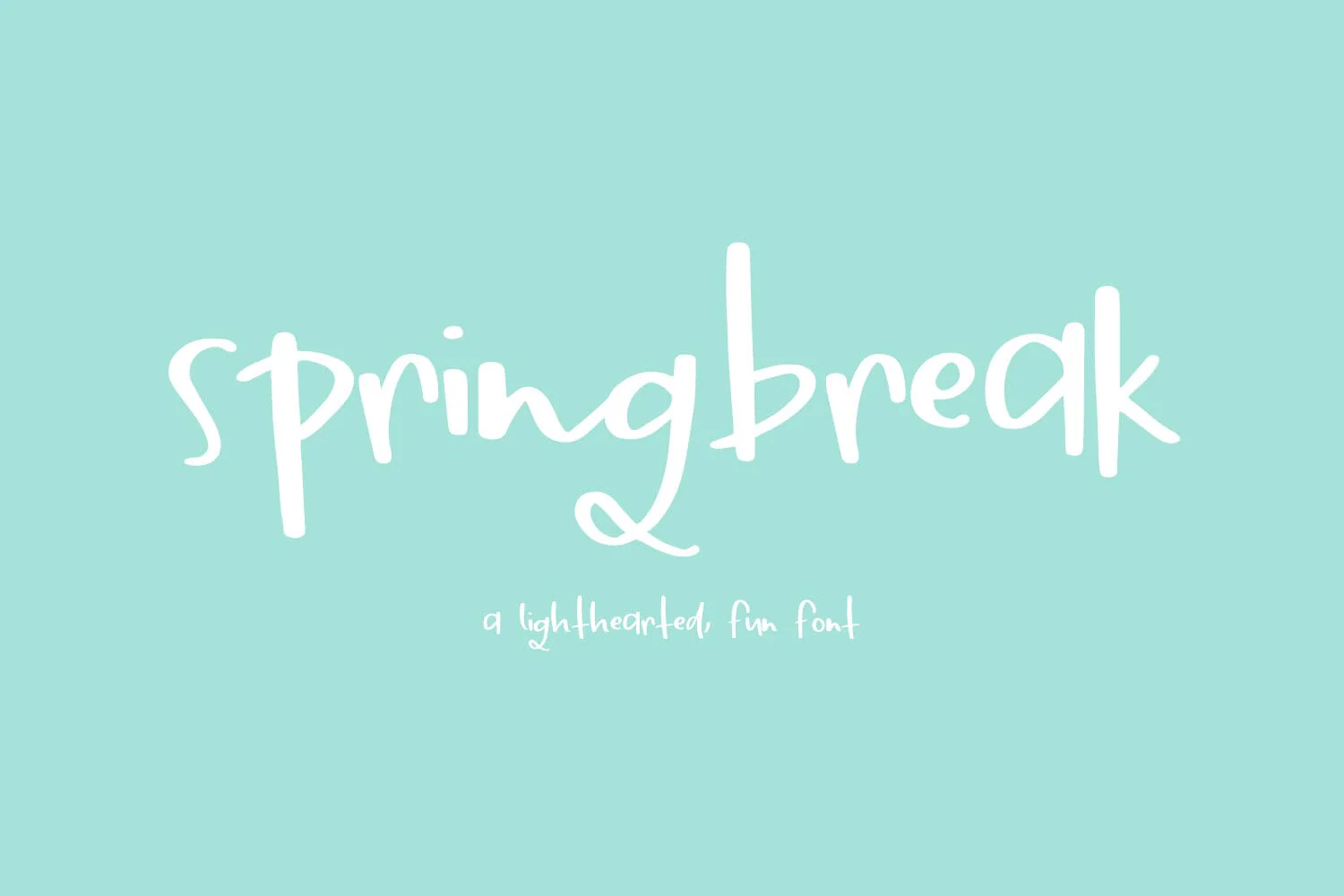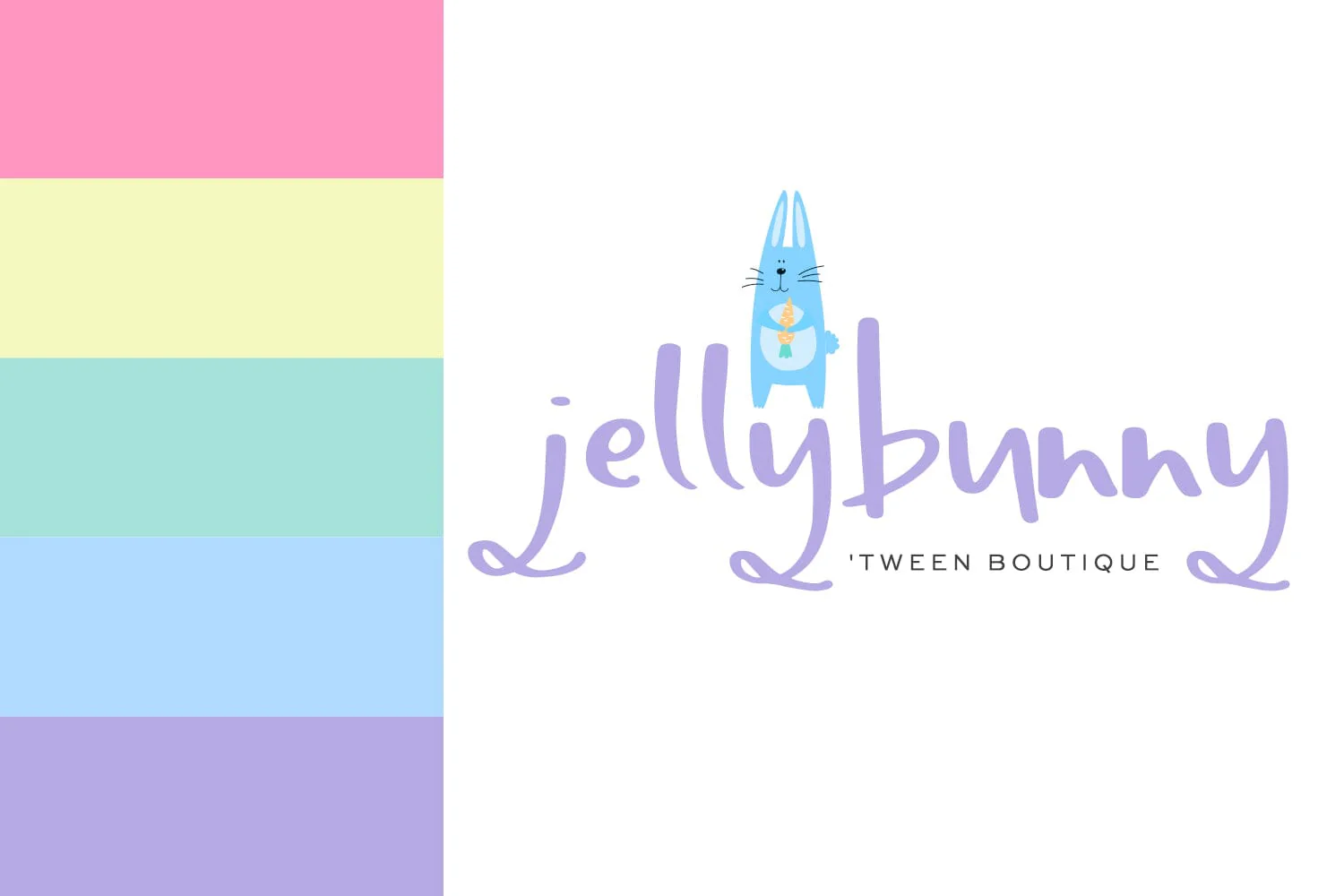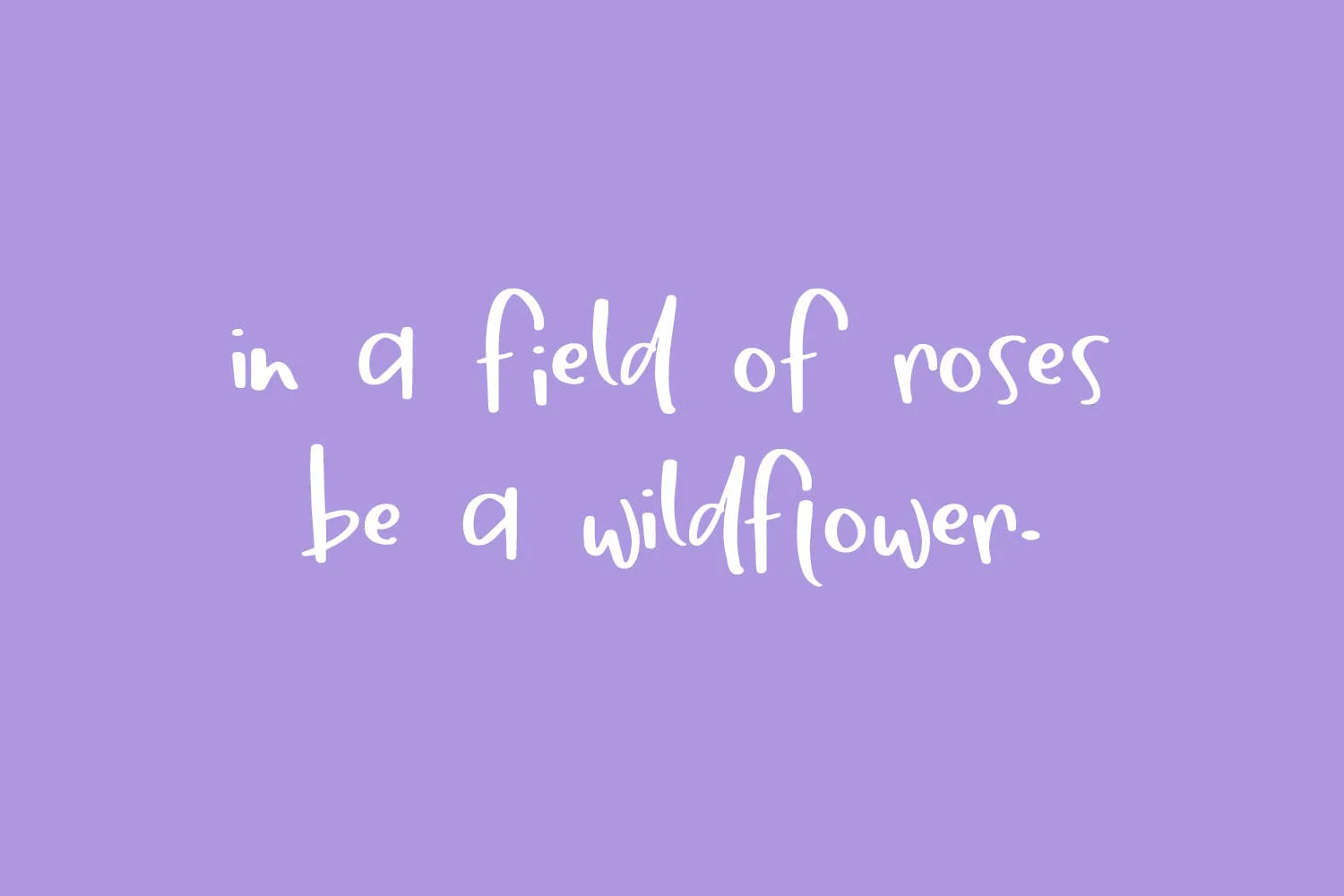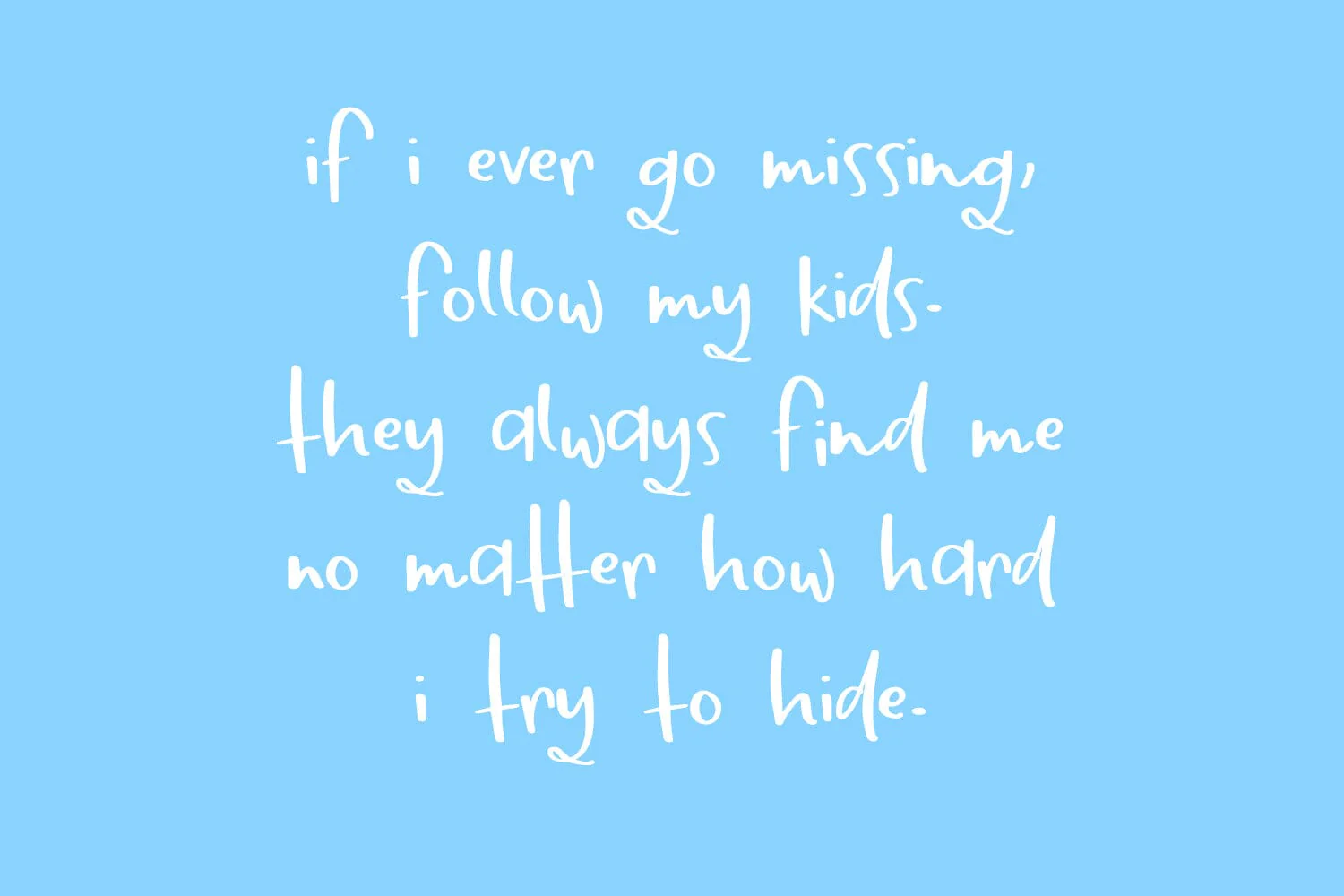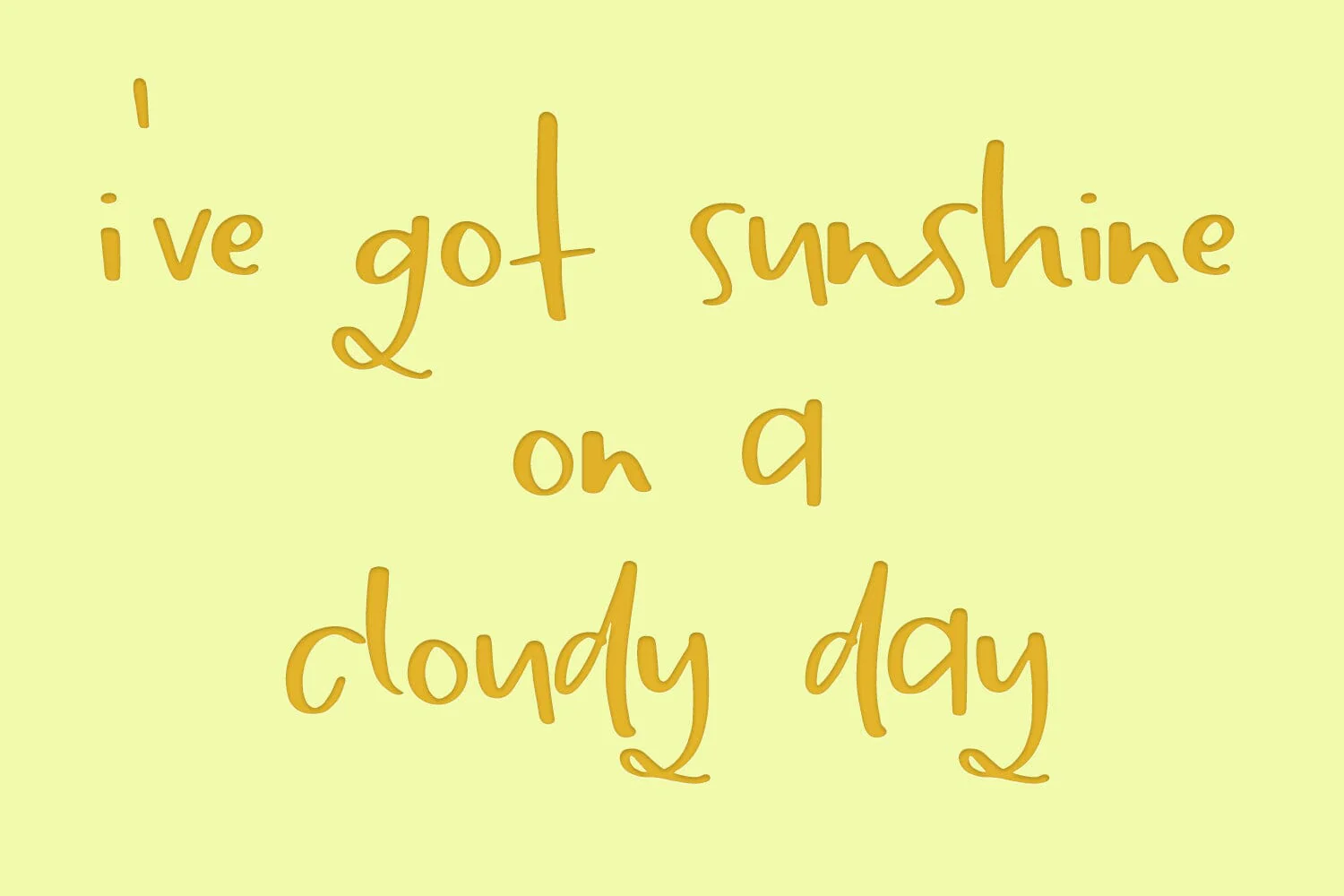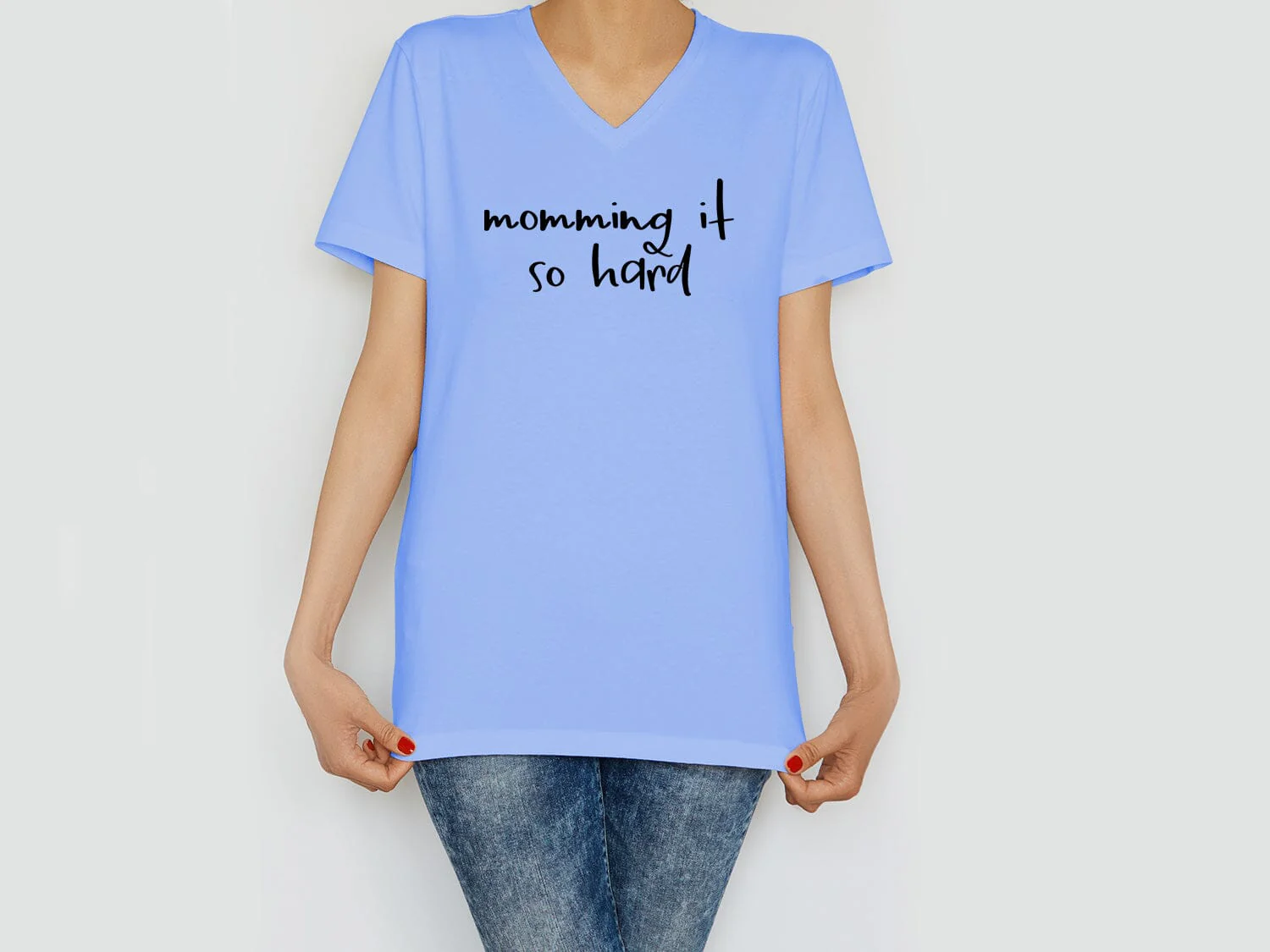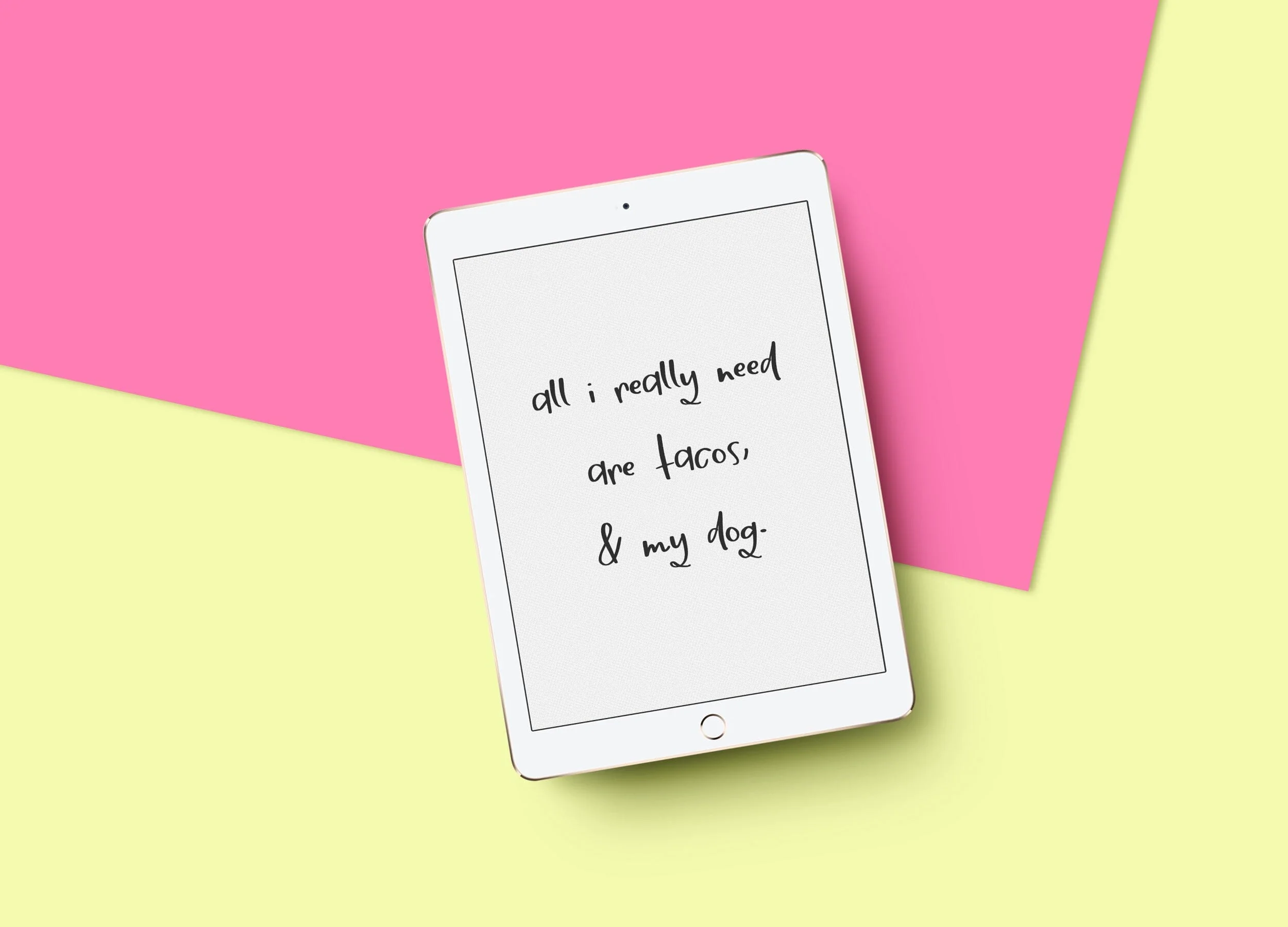
Springbreak Script Font
Introducing Springbreak, a fresh and bouncy handlettered print font.Ā Springbreak is super easy to read, with just enough playfulness and flow.
Bonus! Springbreak features European language support!
Introducing Springbreak, a fresh and bouncy handlettered print font.Ā Springbreak is super easy to read, with just enough playfulness and flow.
Bonus! Springbreak features European language support!